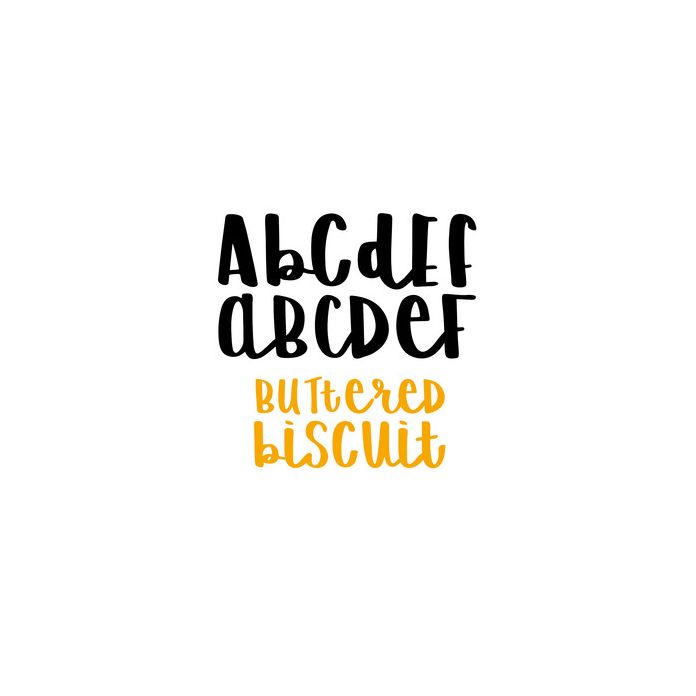
Buttered Biscuit is an adorable font! A cross between upper and lower case letters, and script and sans serif alphabet, this font has ligatures to make your project look hand written in this fun font. 221 glyphs.